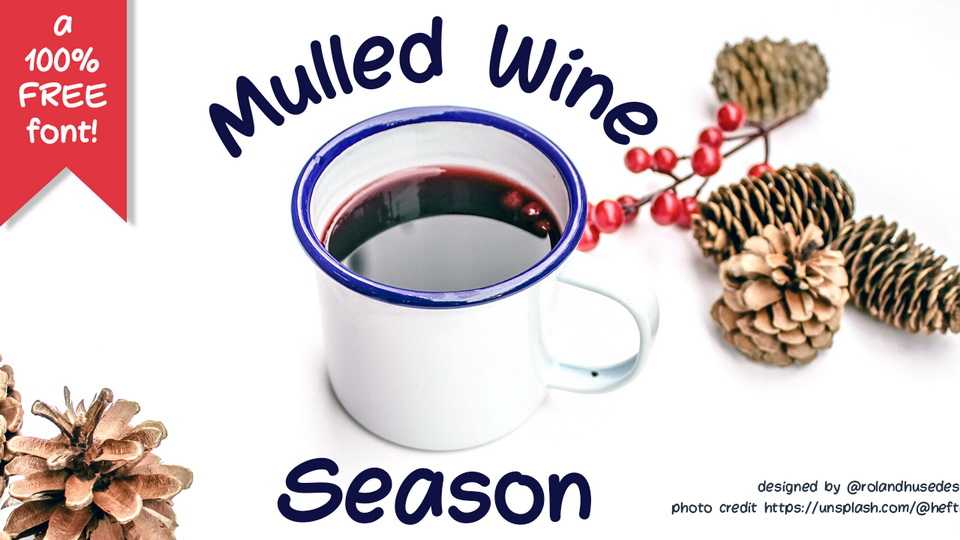
Download Mulled Wine Season font, a bold, rounded typeface with a bouncing, playful rythm and tight letterspacing. Mulled Wine Season font is perfect for Children’s Book, Cartoon themes, etc.